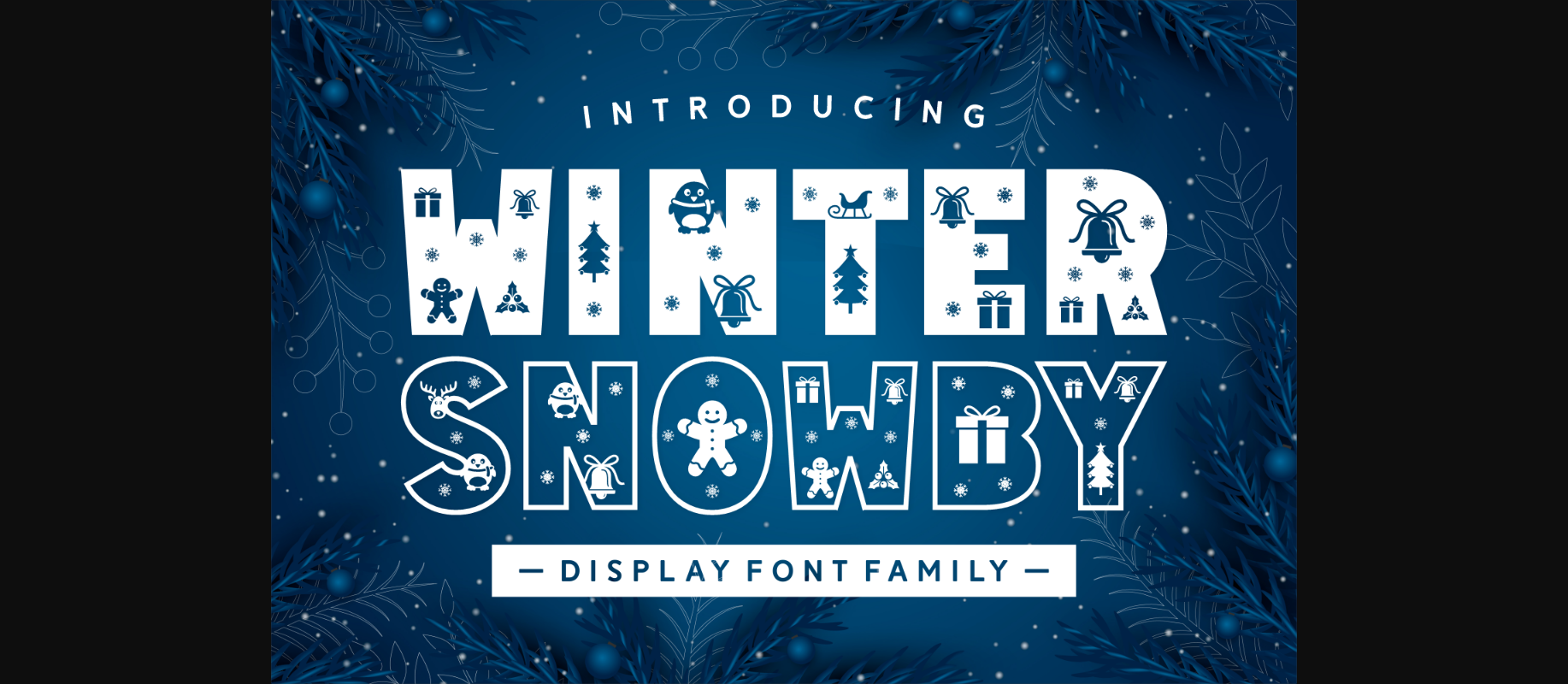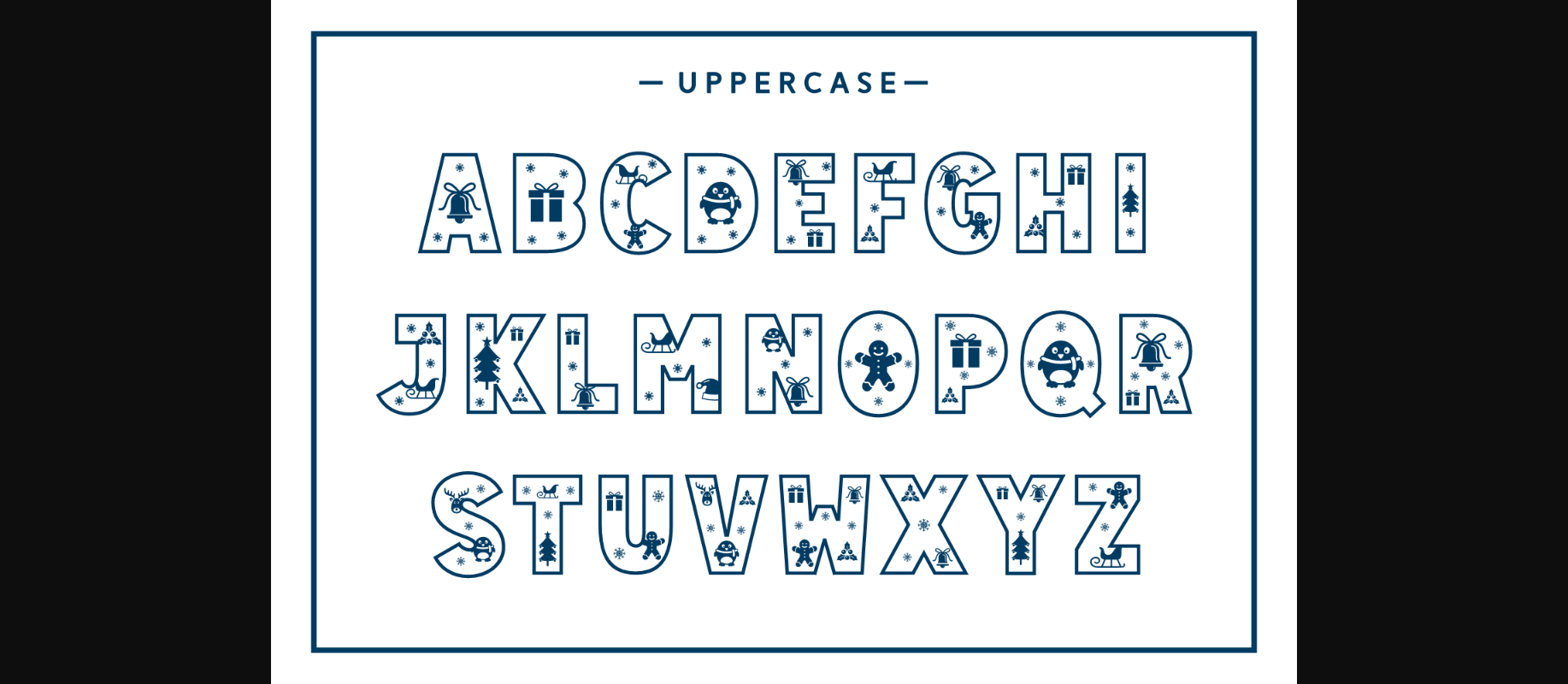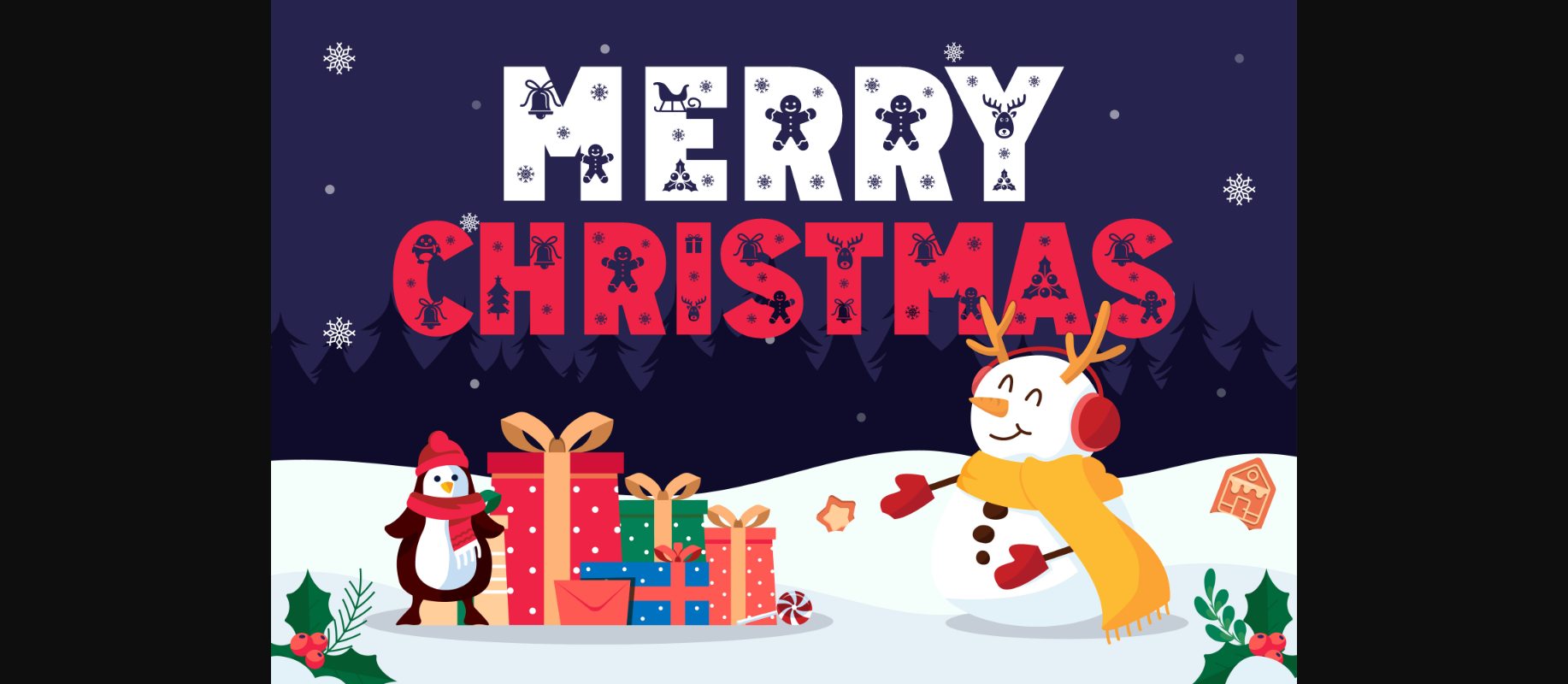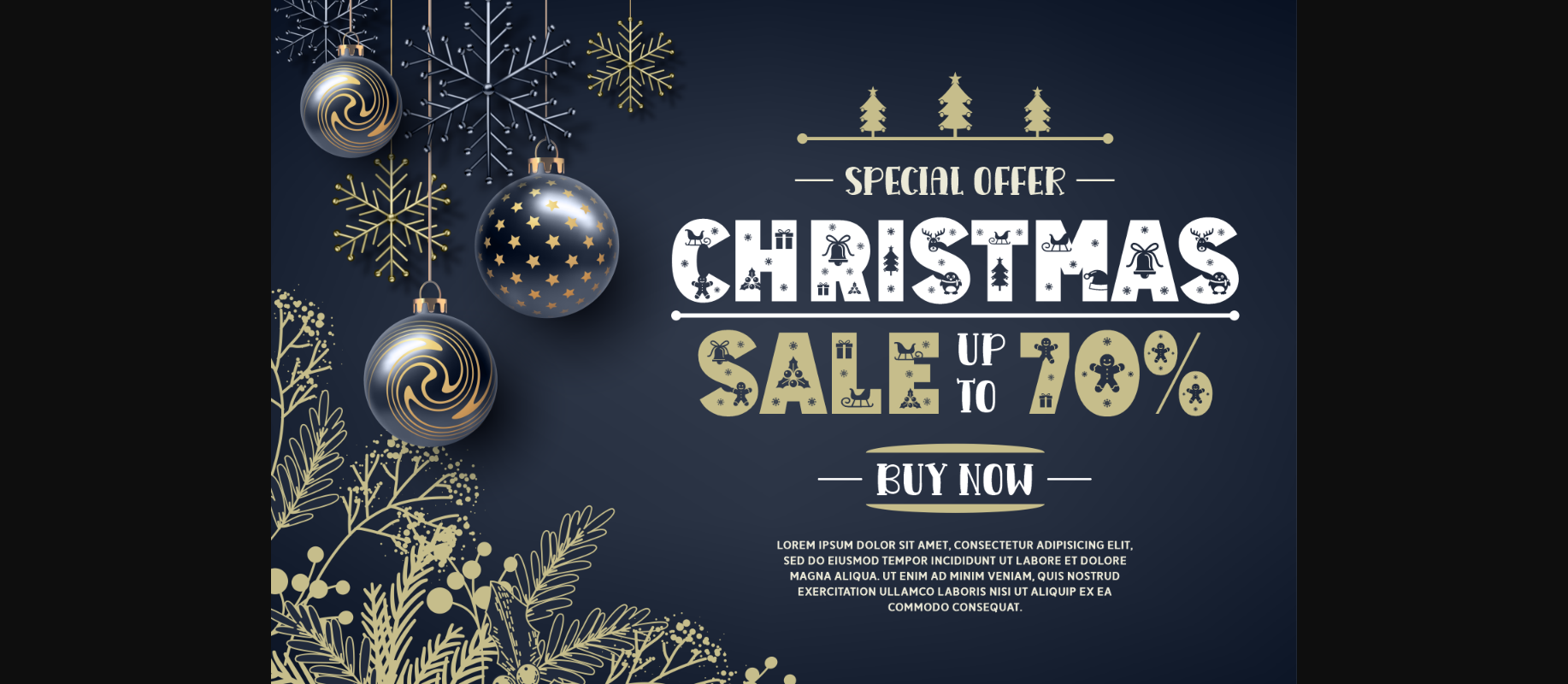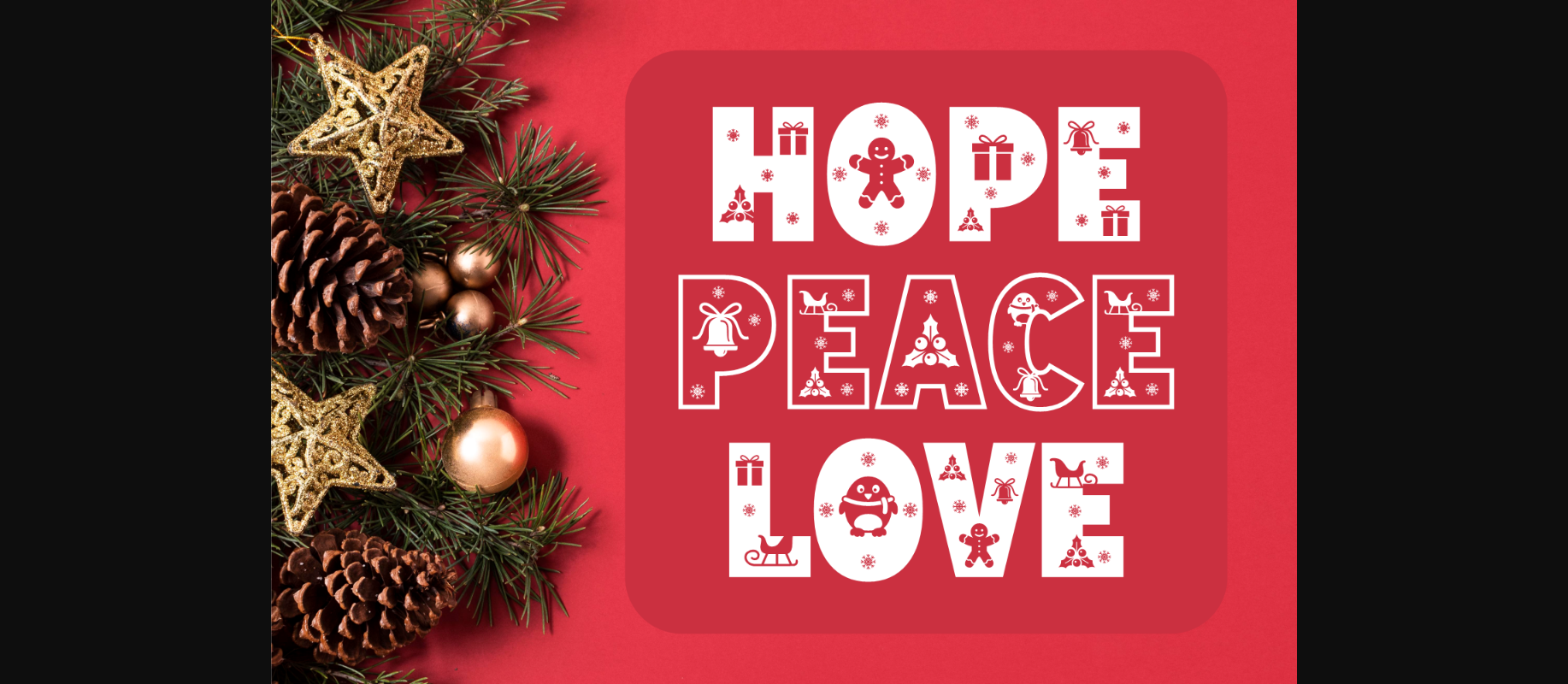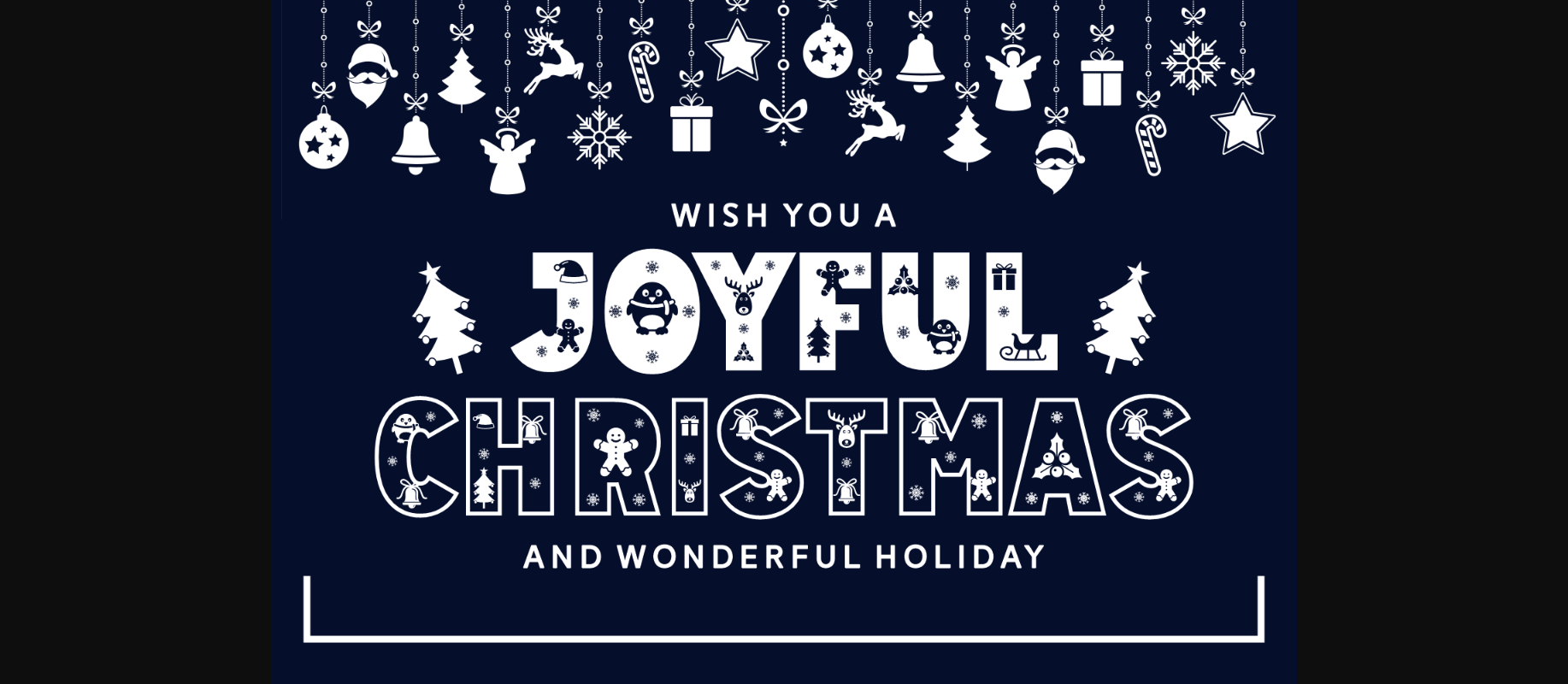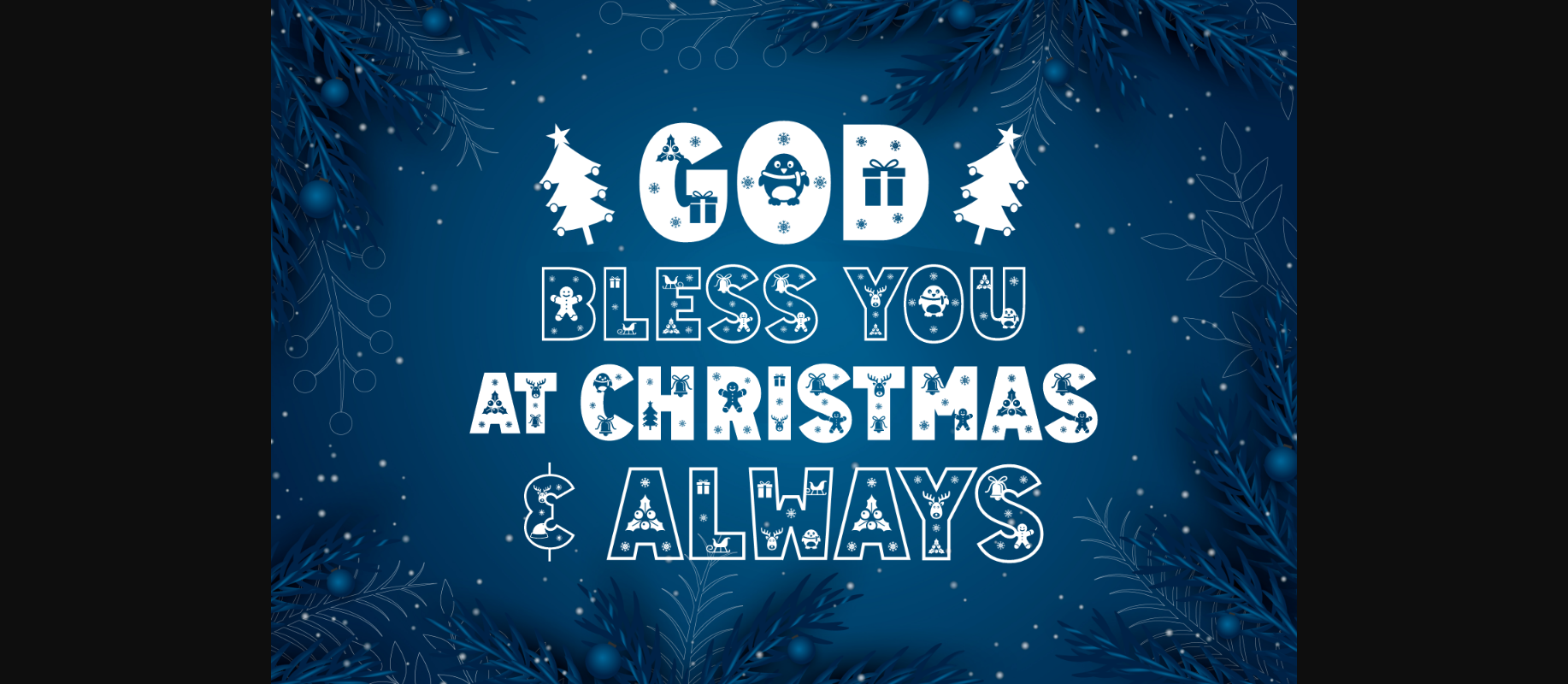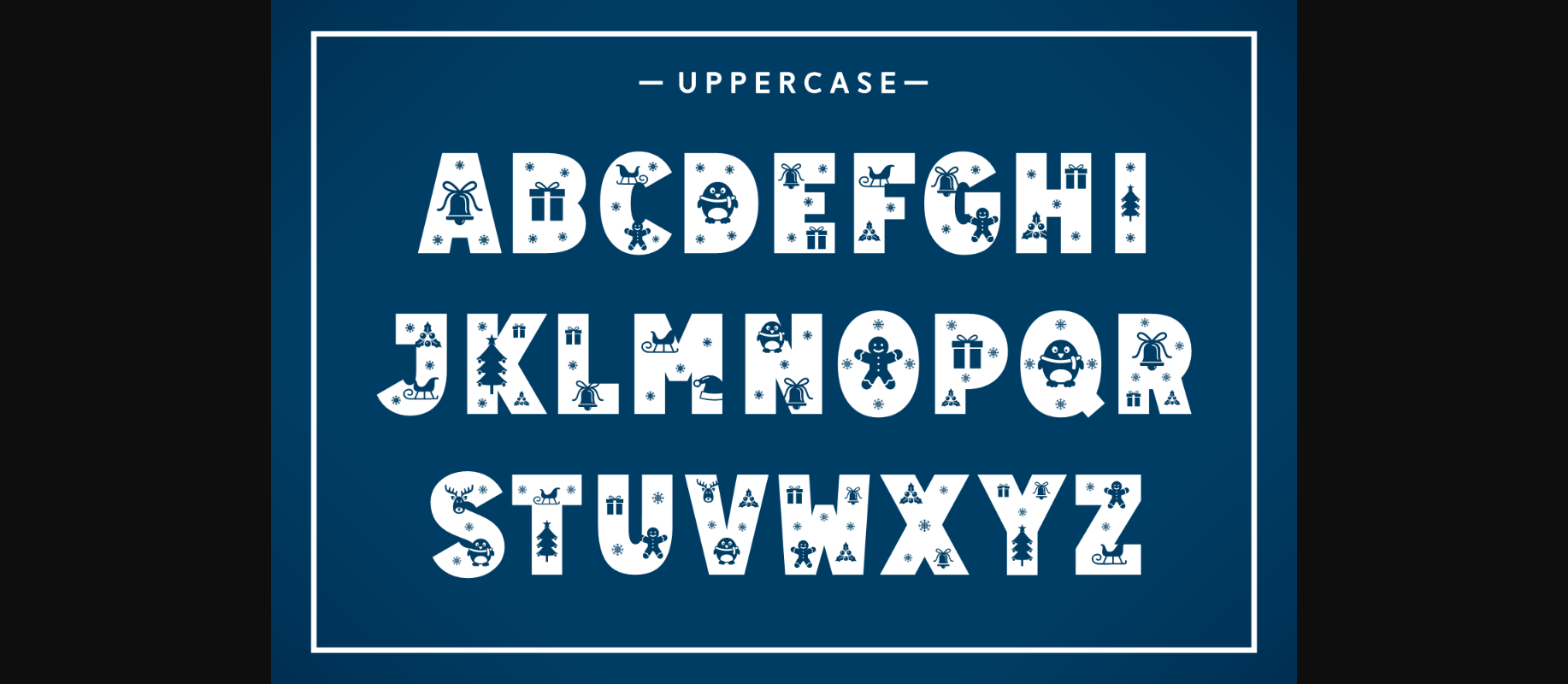
Winter Snowby Font
About Winter Snowby Font
Winter Snowby is a cute and fun decorative font enhanced with adorable wintery elements. Add it to all your Christmas-themed ideas and your designs will stand out from the crowd!